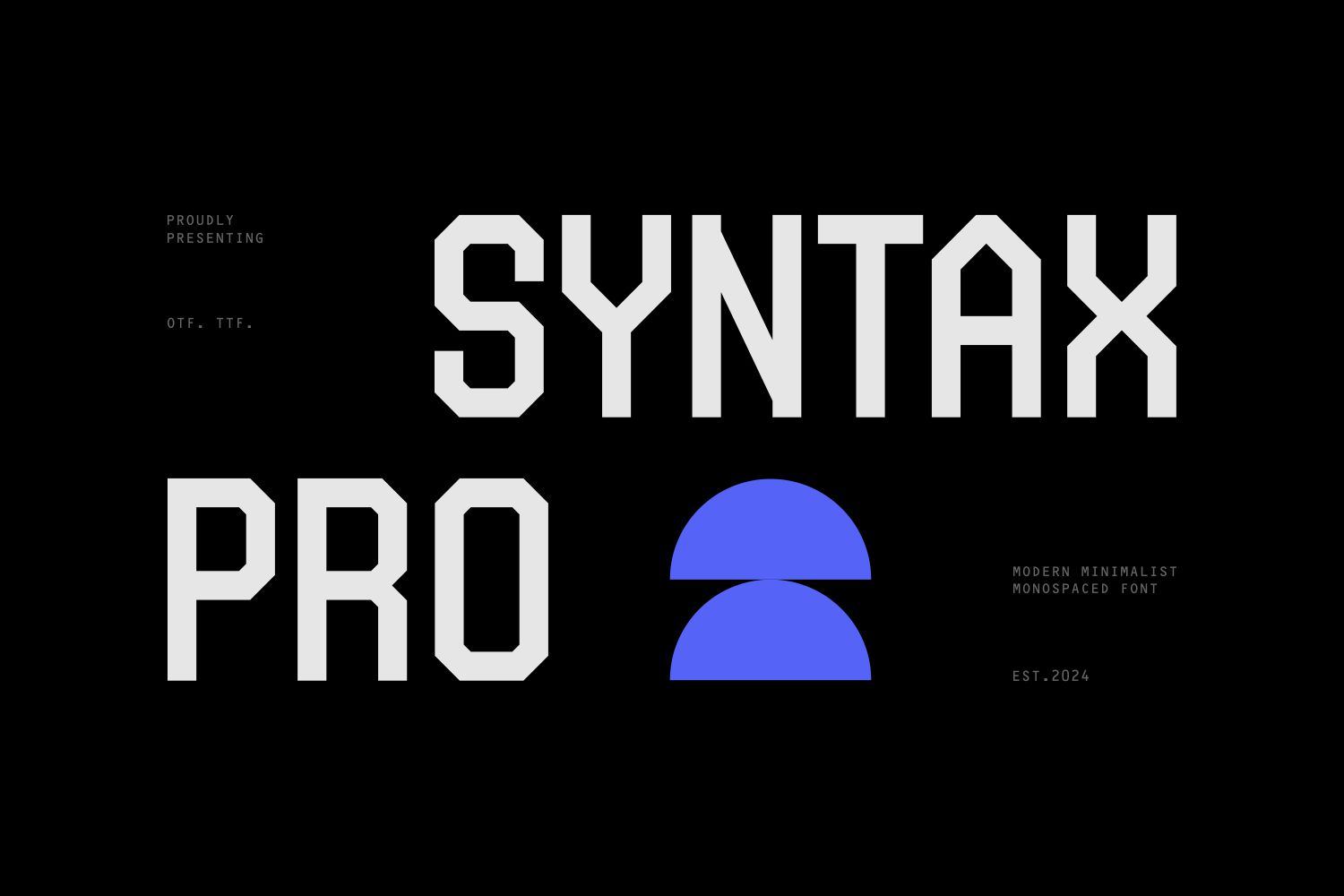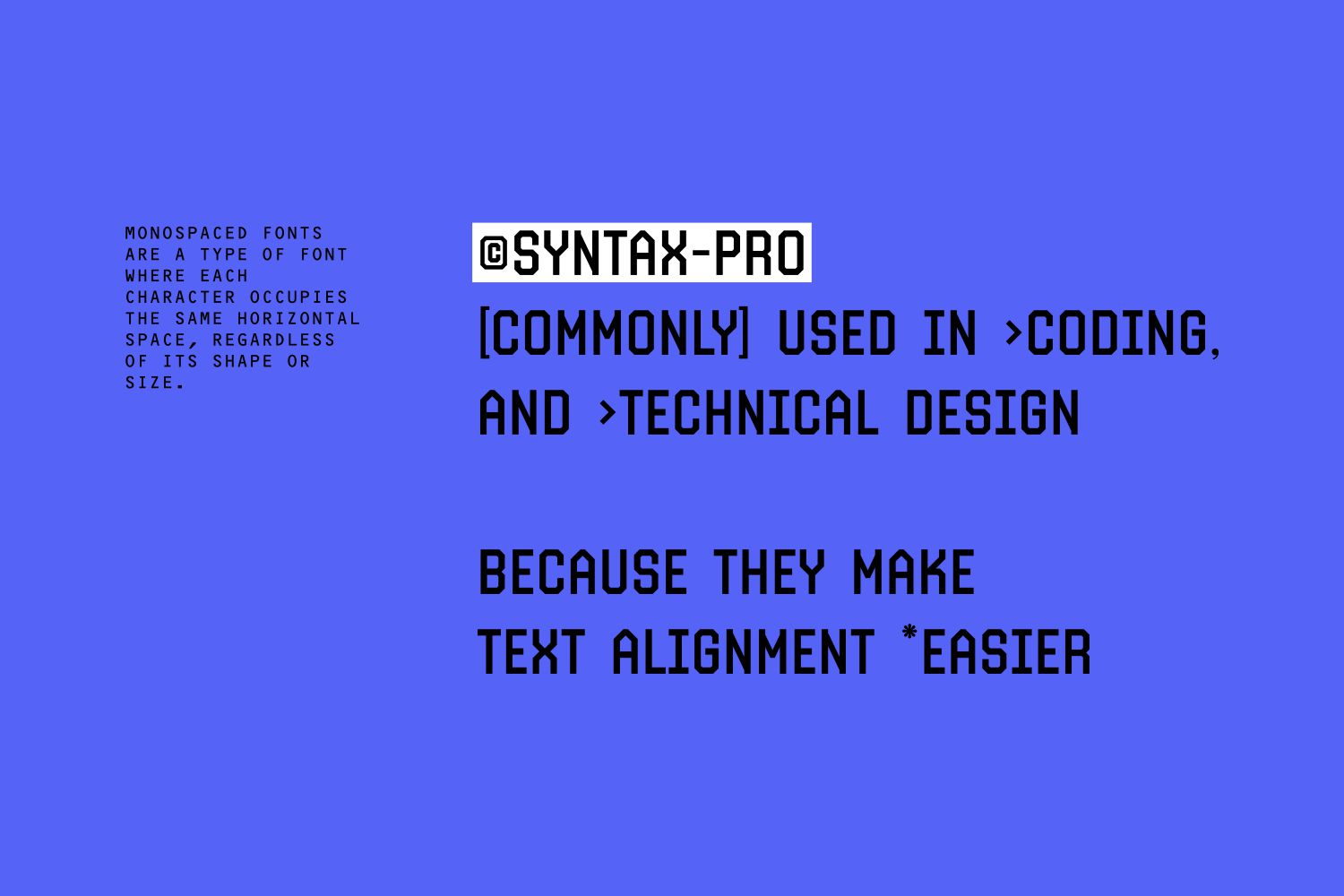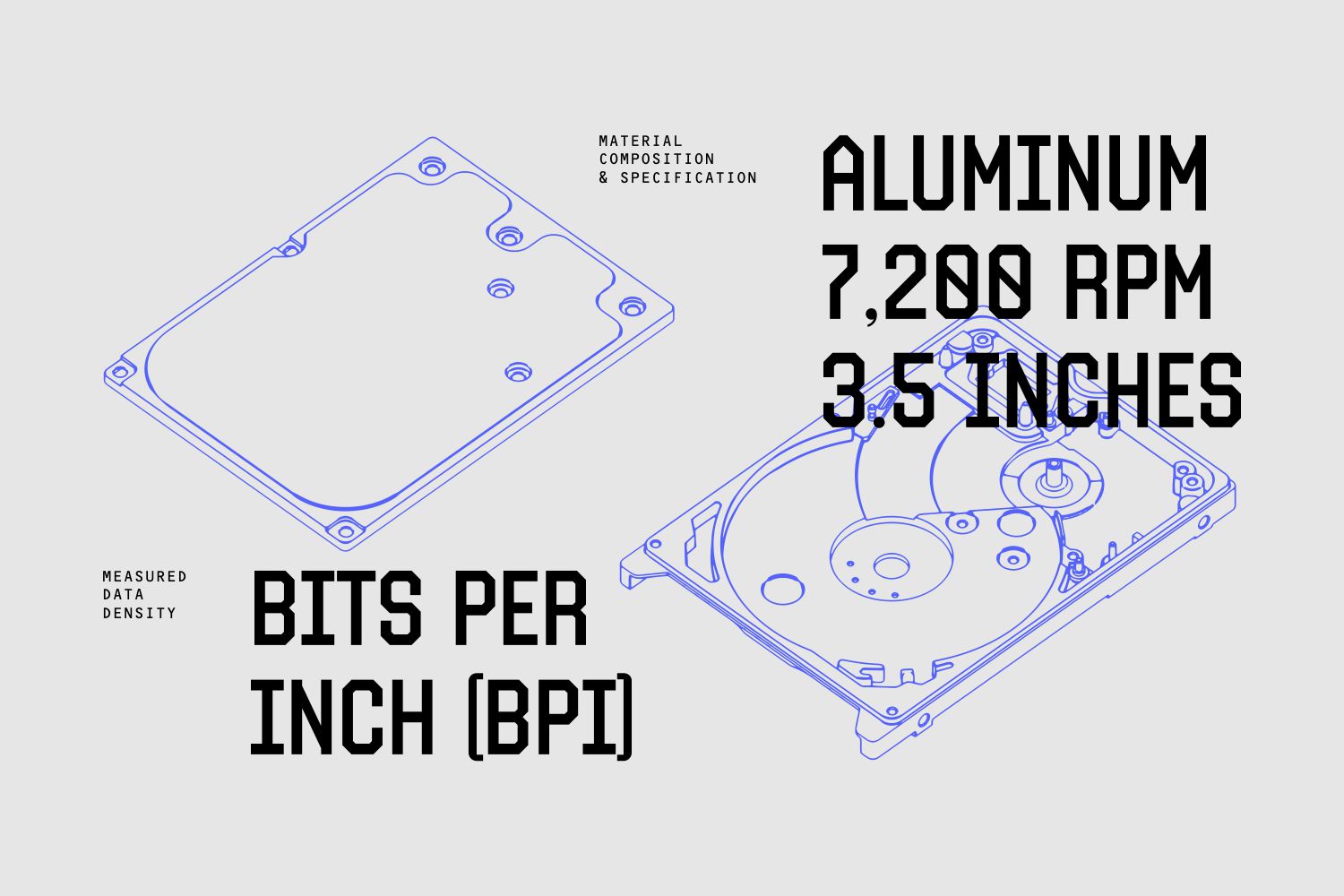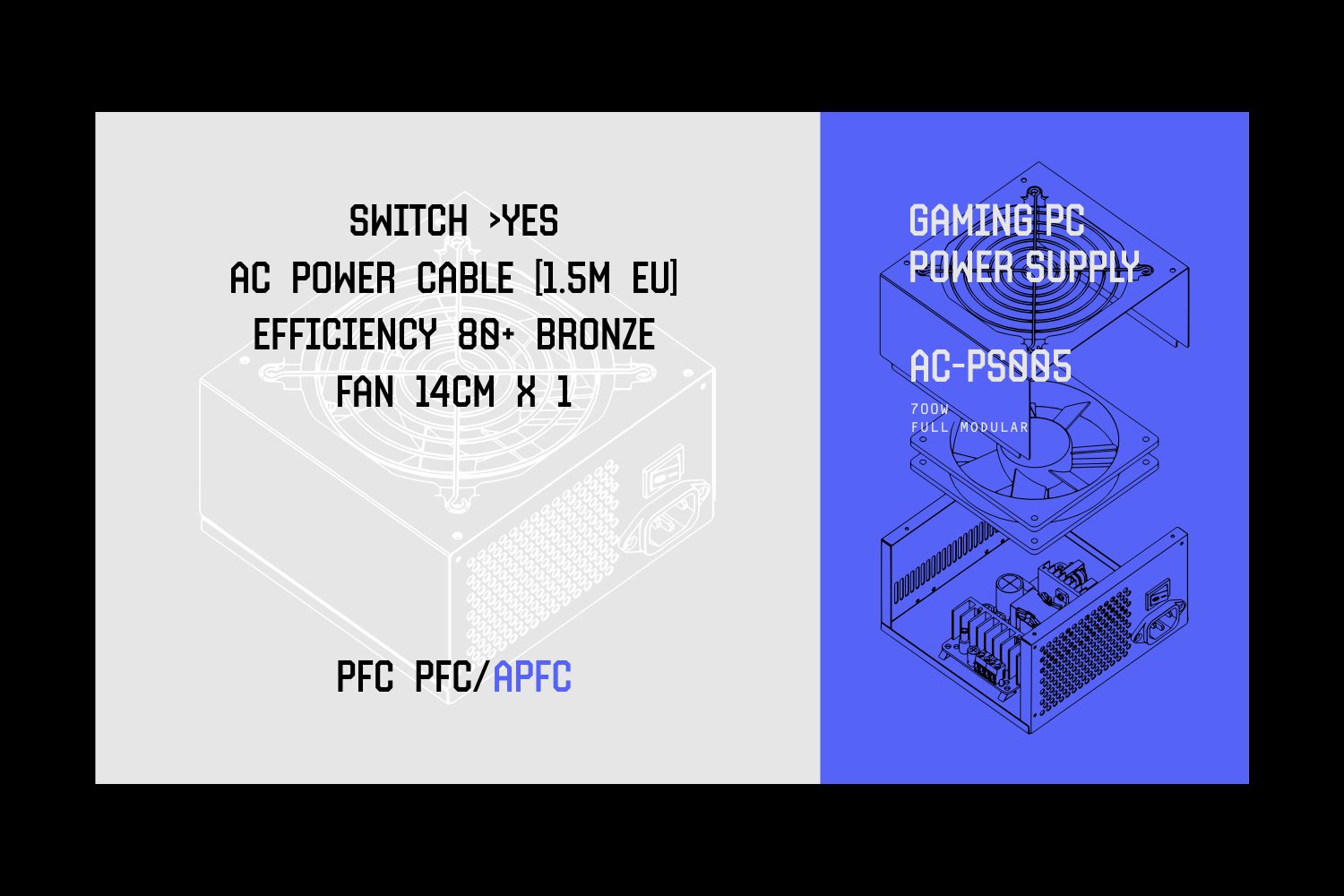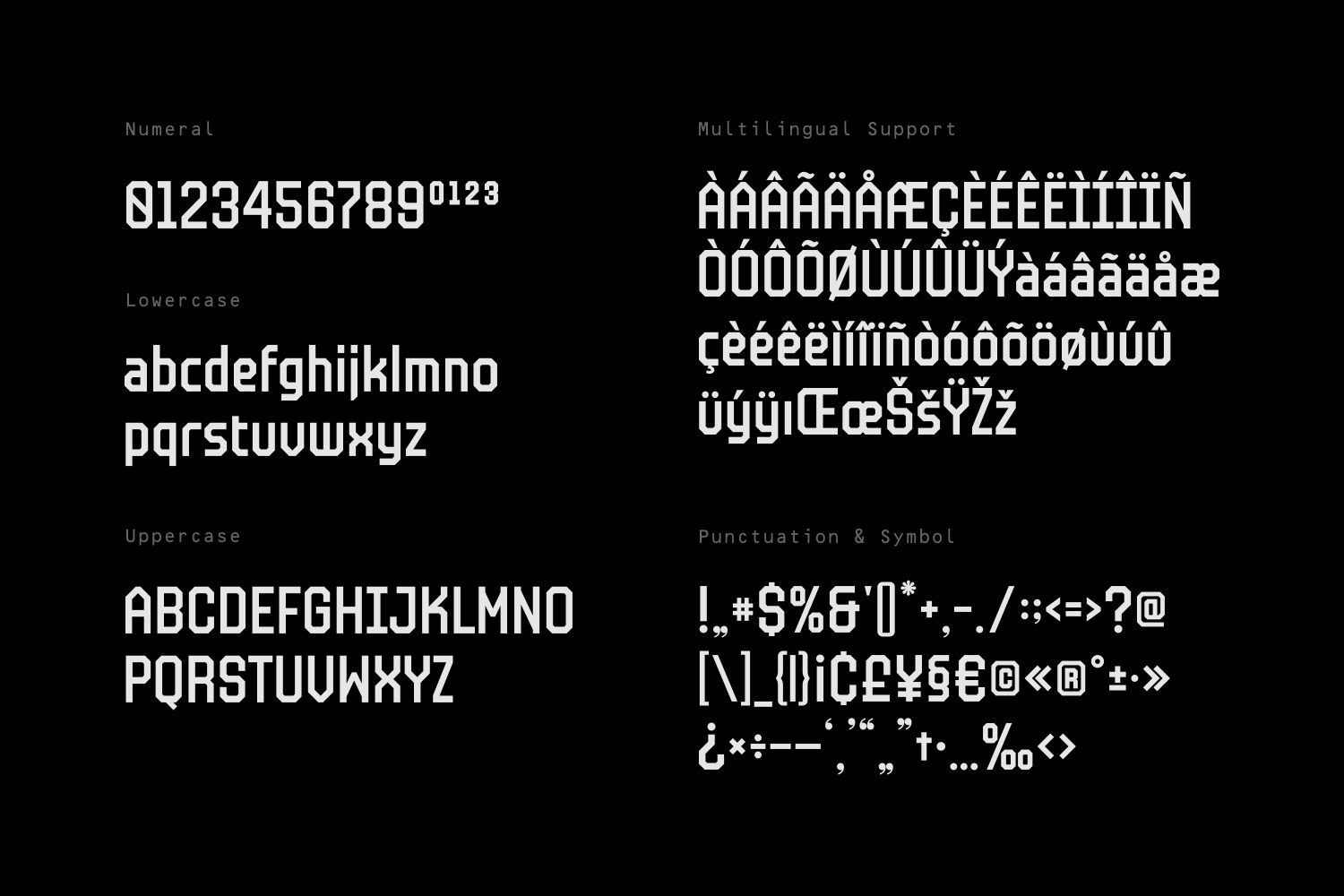
Syntax Pro is a modern, minimalist monospaced font built for clarity and precision. With its rigid geometry and uniform spacing, this typeface is crafted to enhance technical design, programming interfaces, code snippets, and futuristic layouts. It’s the perfect tool for conveying structure and efficiency in modern visual communication.
Engineered with a clean aesthetic and strong grid system, Syntax Pro ensures excellent legibility across digital and print formats. It includes full multilingual support, punctuation, and symbols. Making it ideal for tech-based branding, infographics, and UI/UX applications where alignment, clarity, and consistency matter most.
Syntax Pro